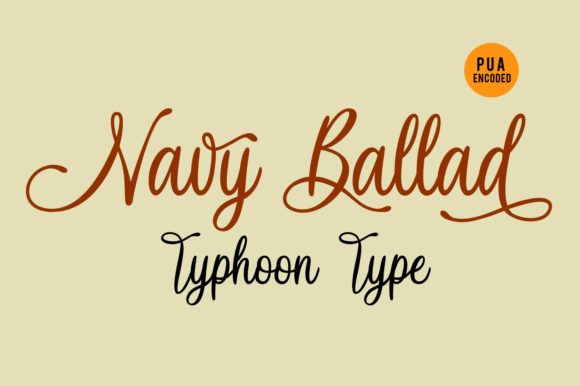
Navy Ballad Font
About Navy Ballad Font
Navy Ballad is a stunning and organic handwritten font with a lovely feel. Use it to turn any design project into a standout!